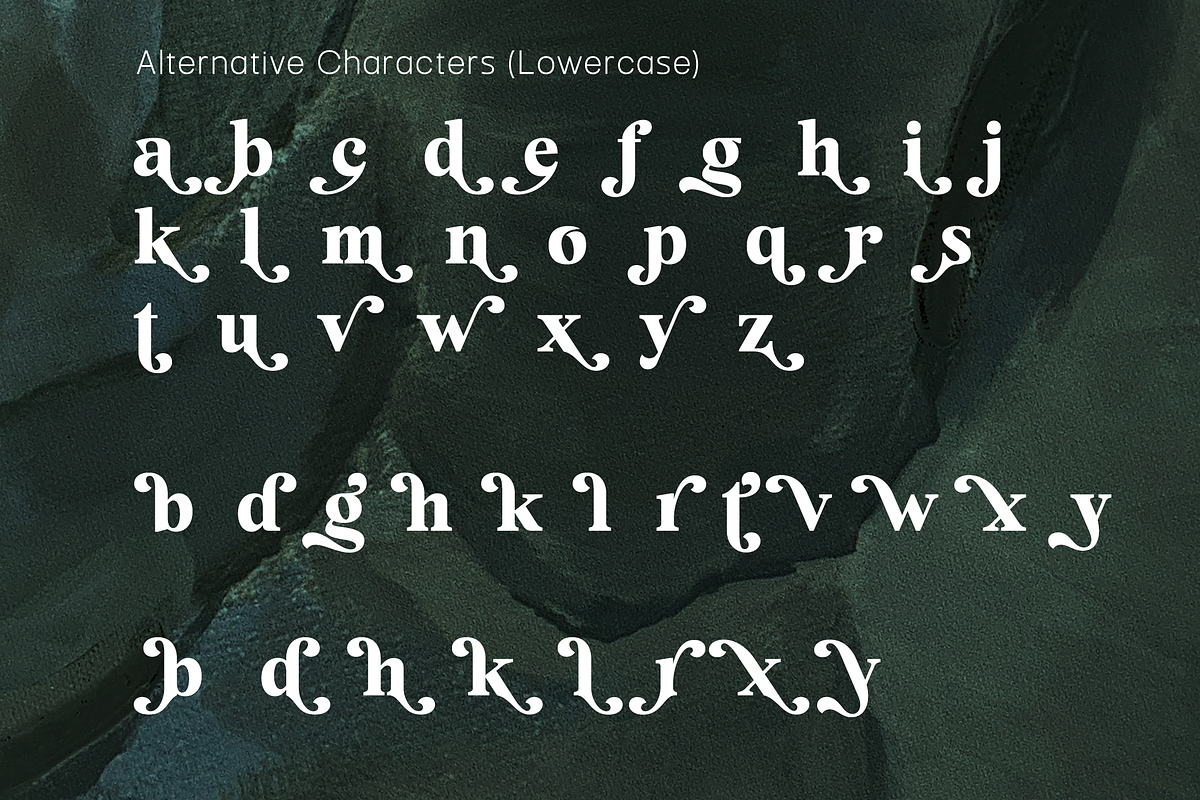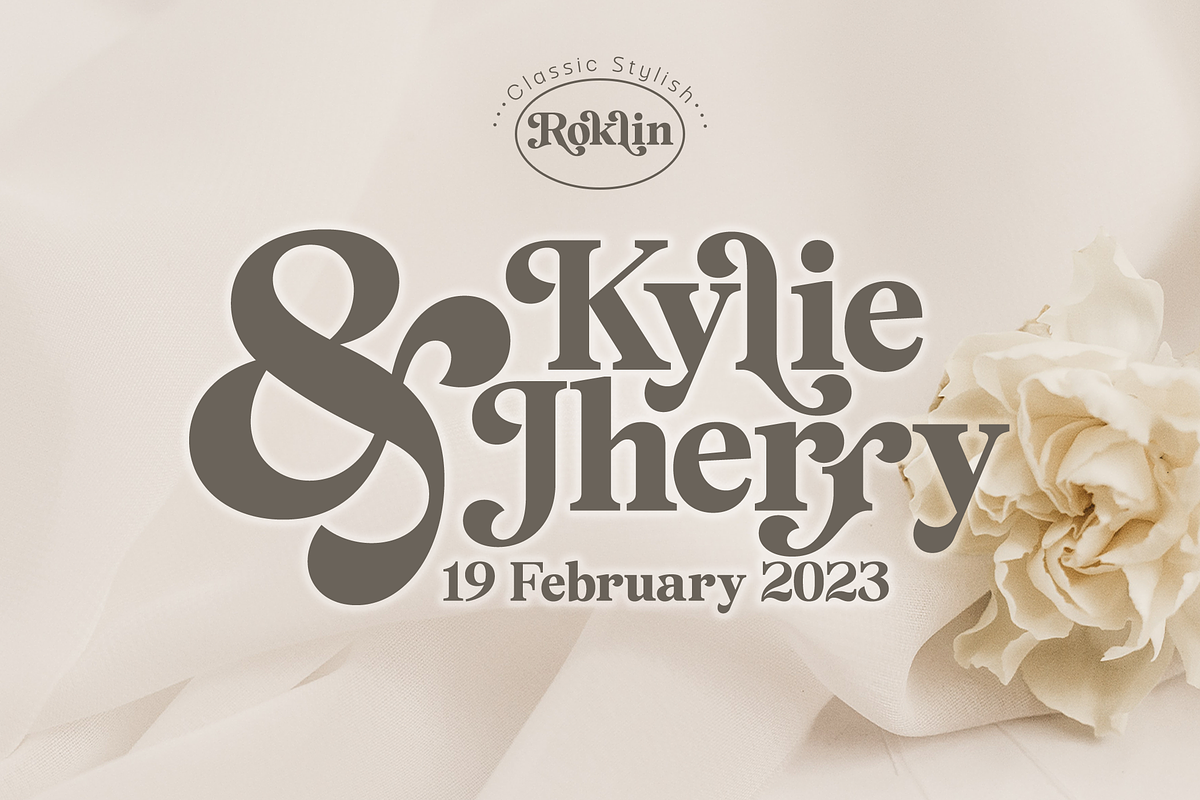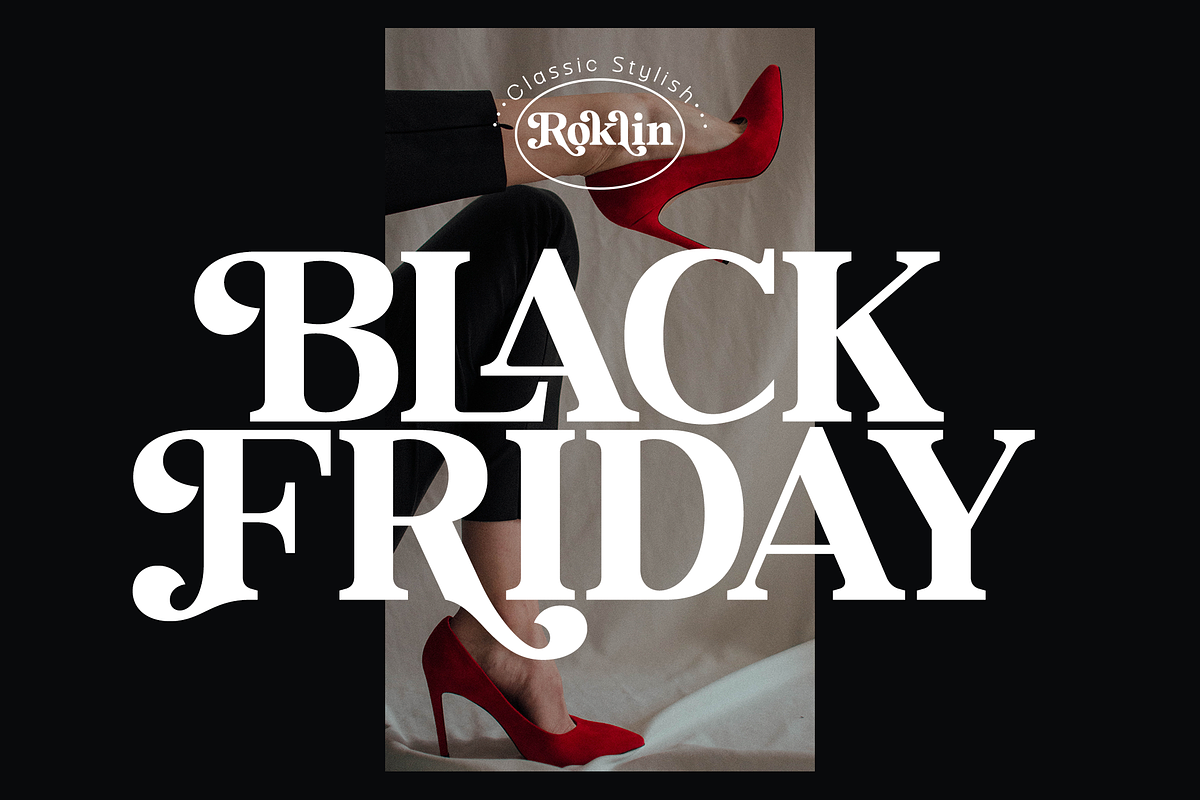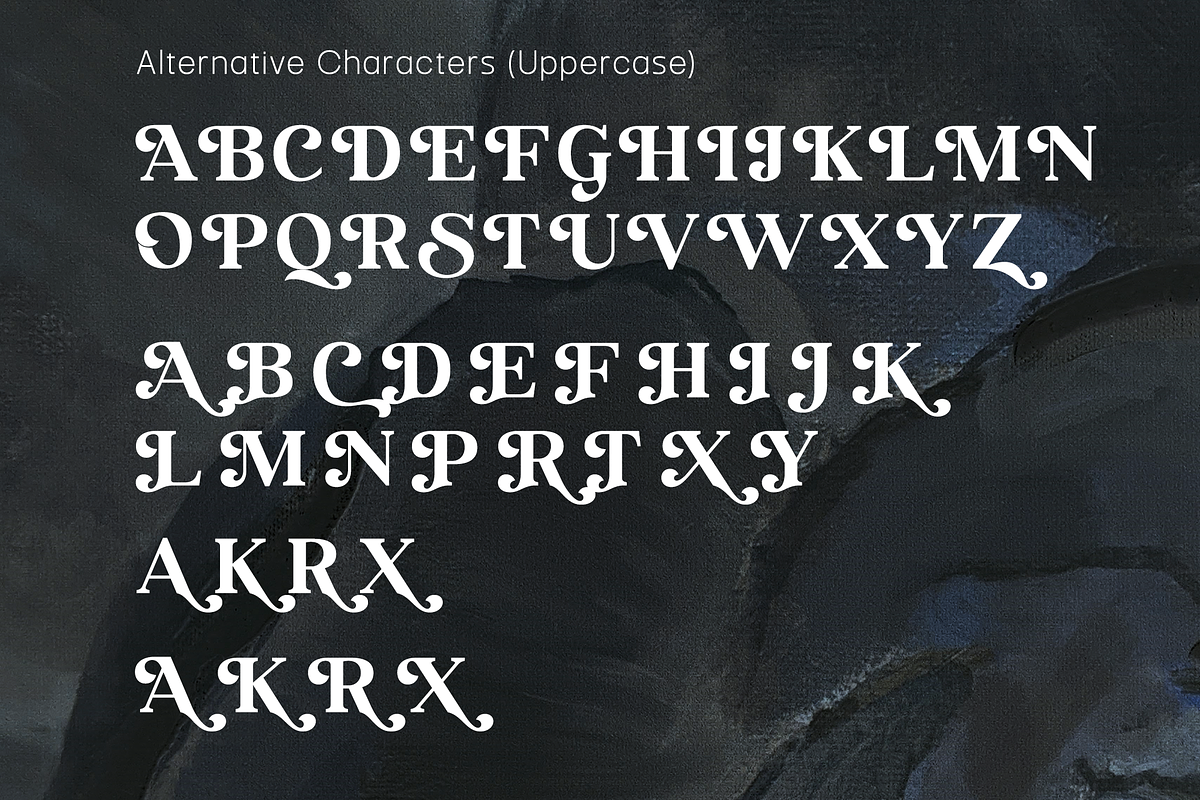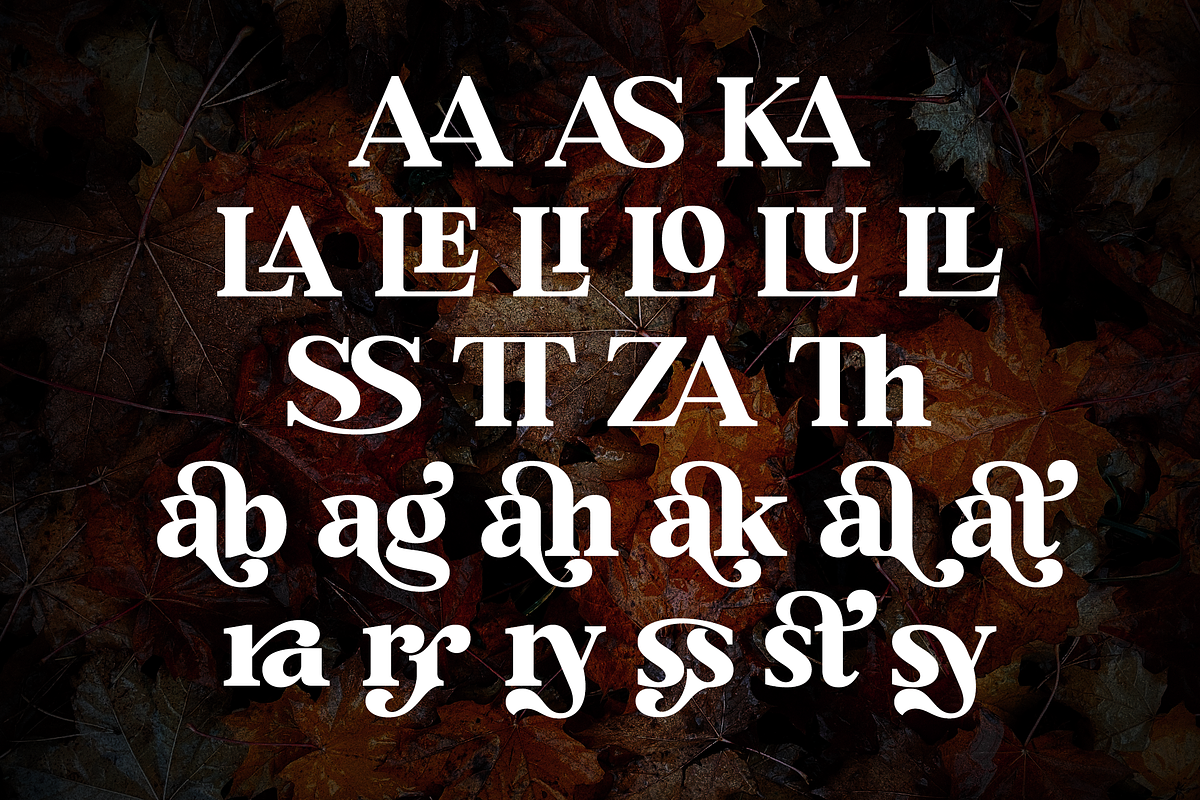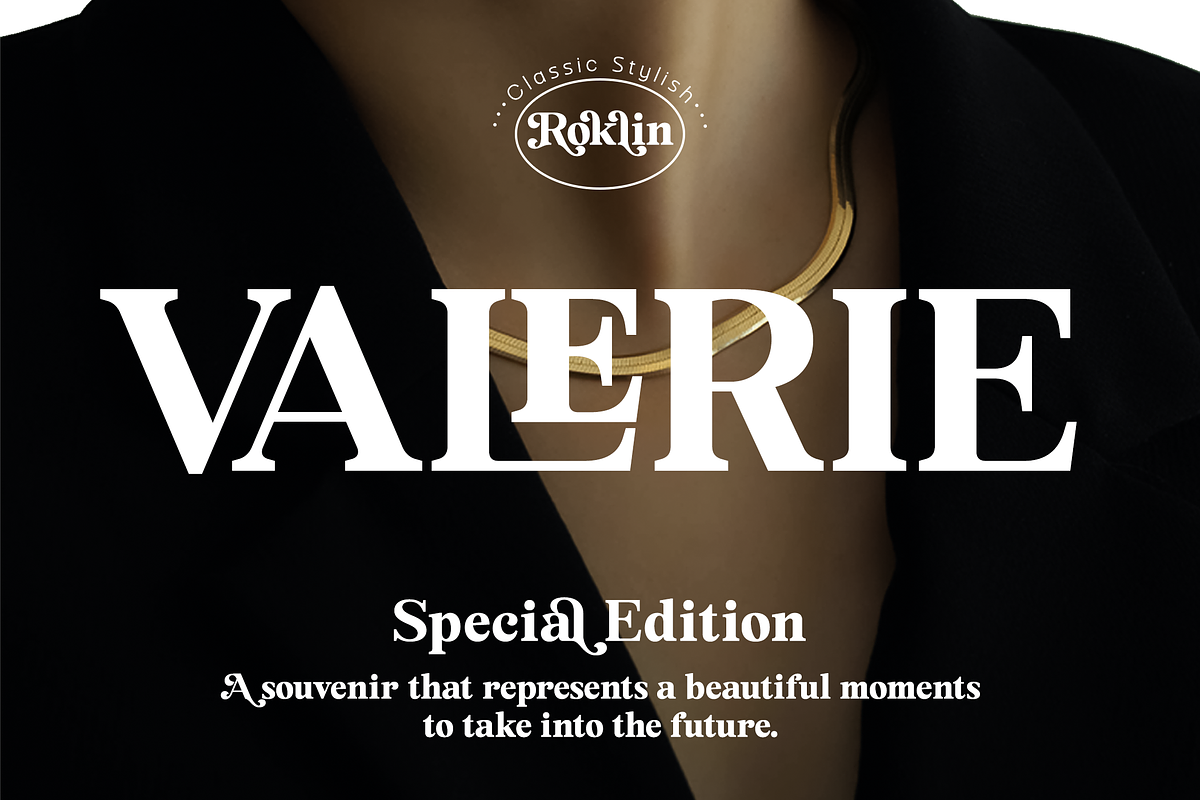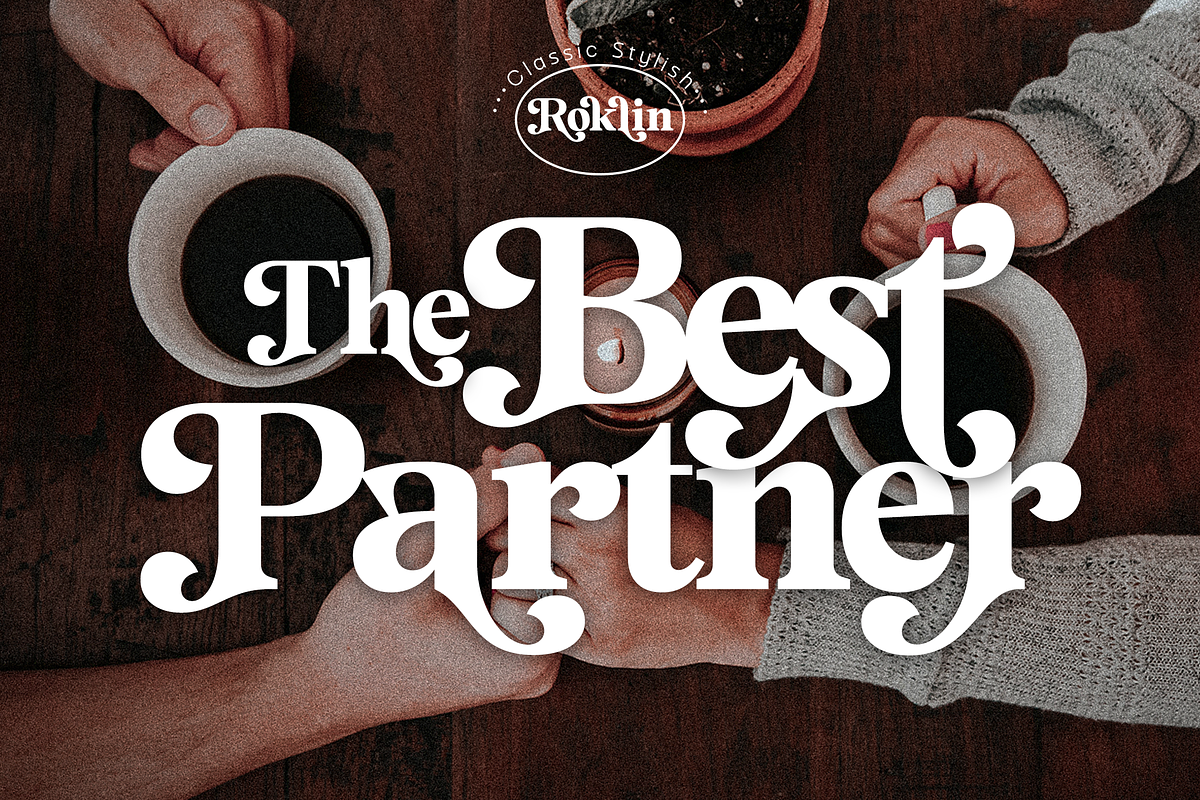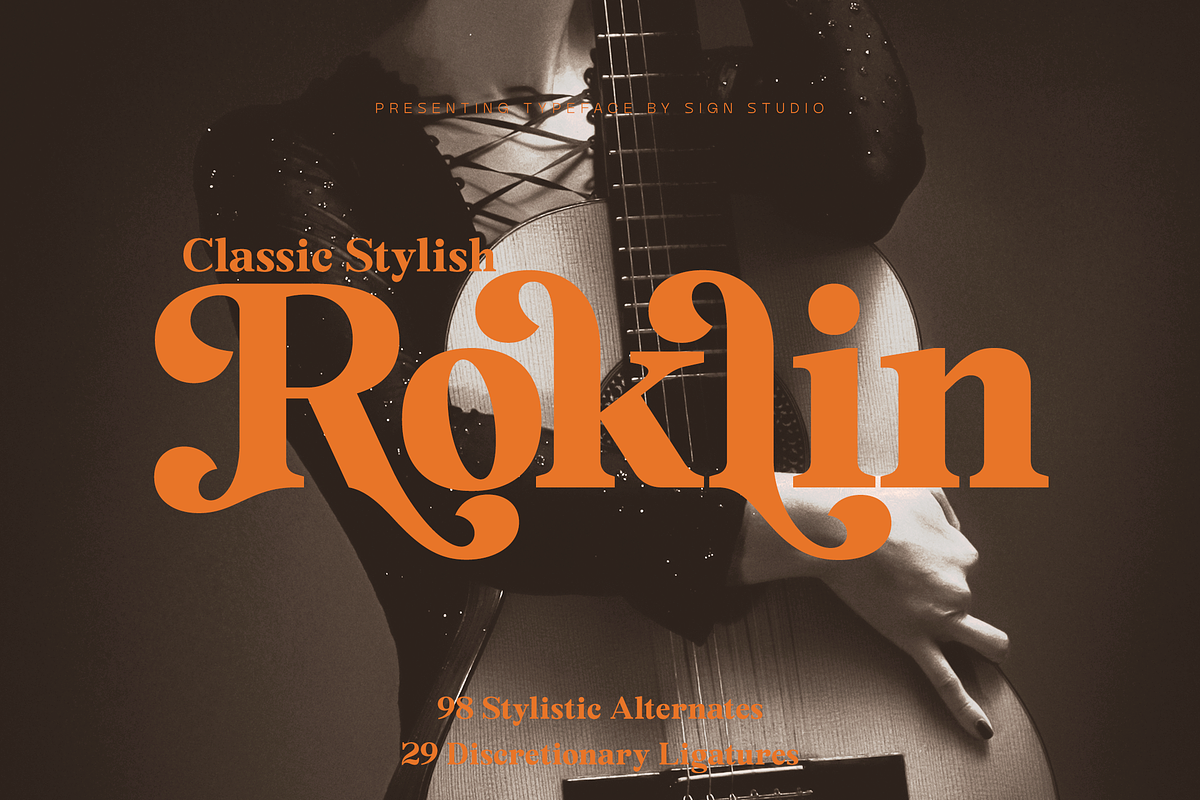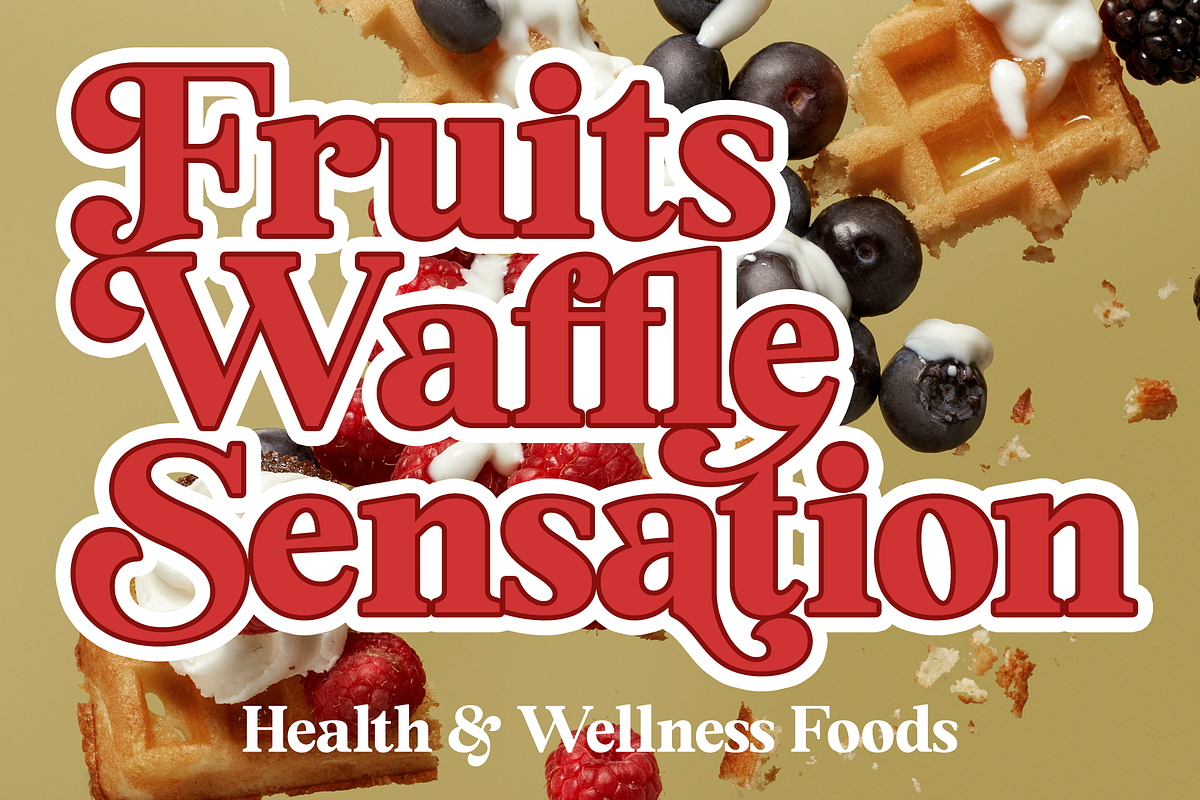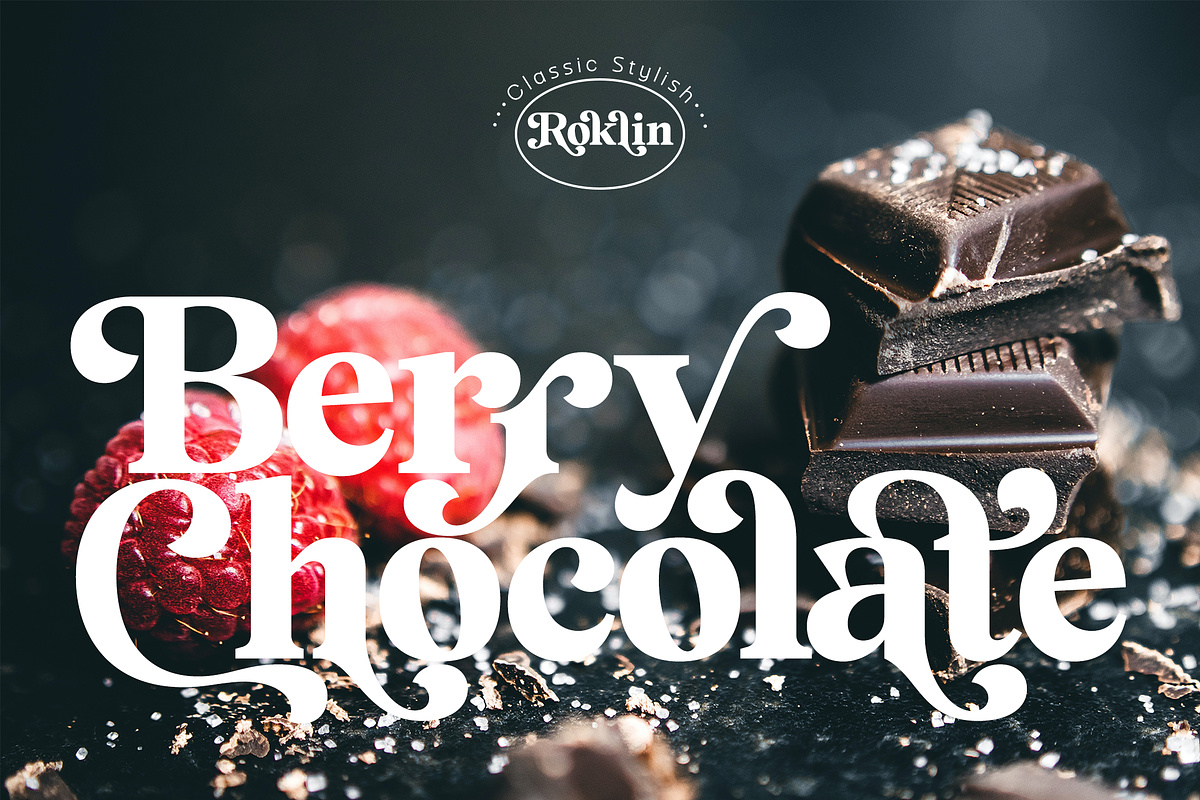
Roklin - Classic Stylish
Roklin is an elegant serif family for use as both formal text and headers. Has quite a lot of character alternatives and also enhanced ligatures. It's perfect for casual typography as well as official documents, really. All characters are PUA Encoded, you can use this font easily in many editing software generally easily.